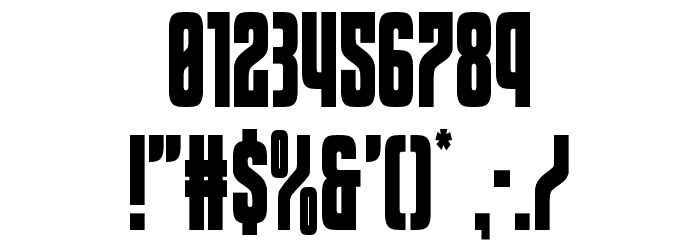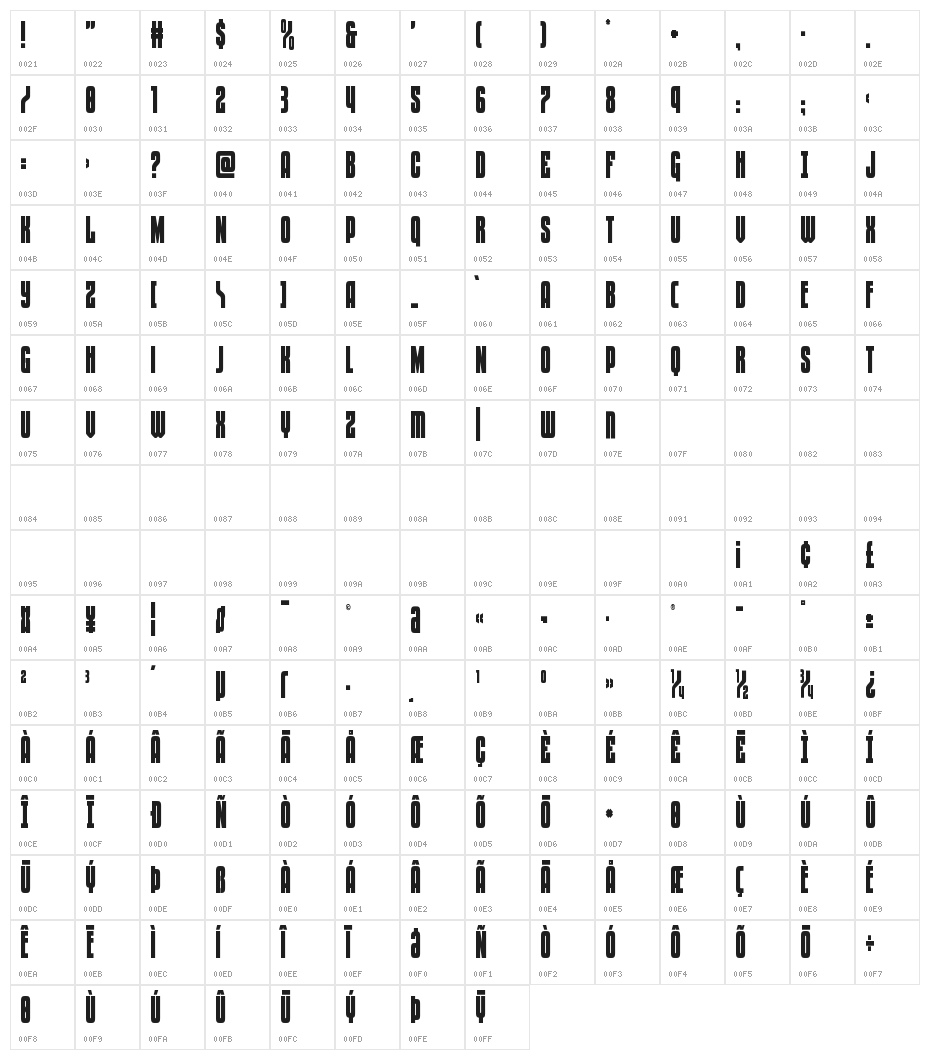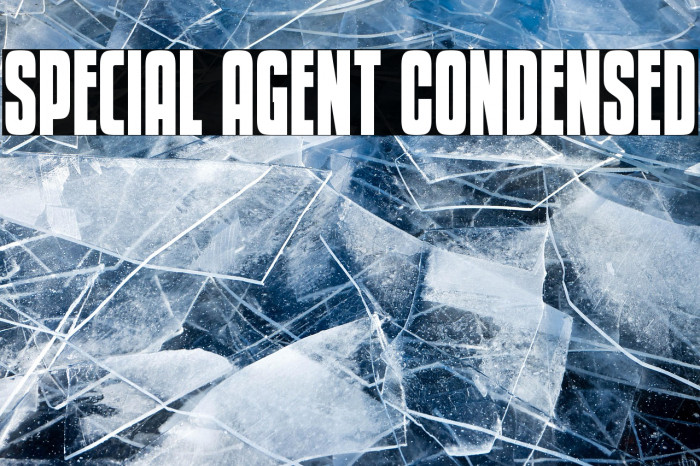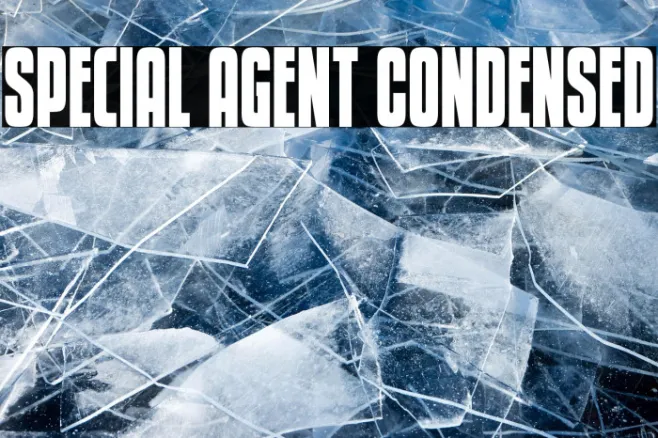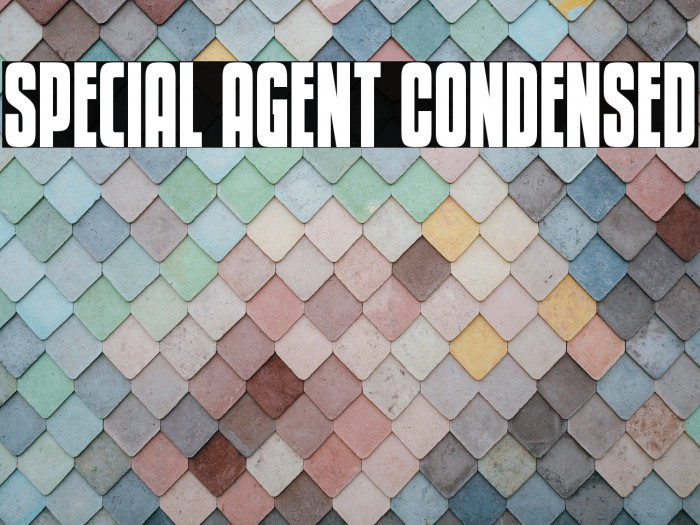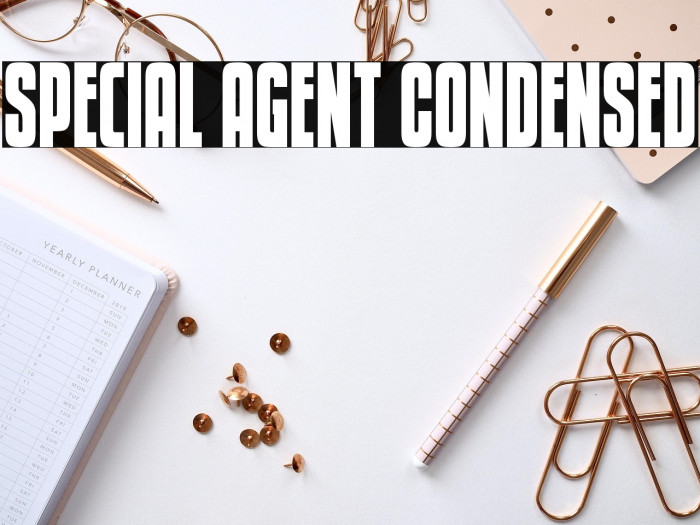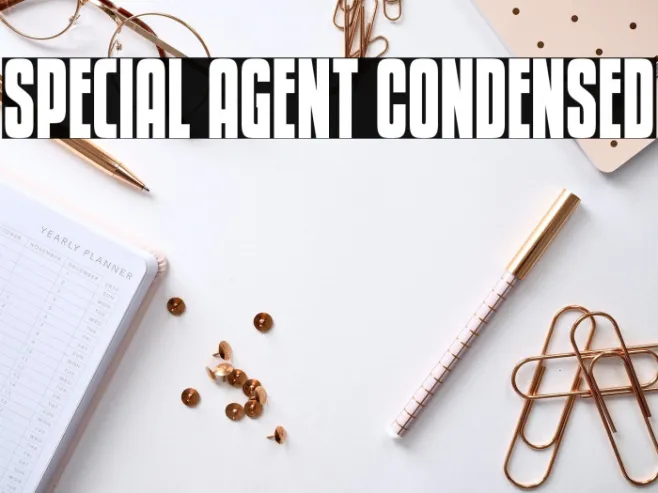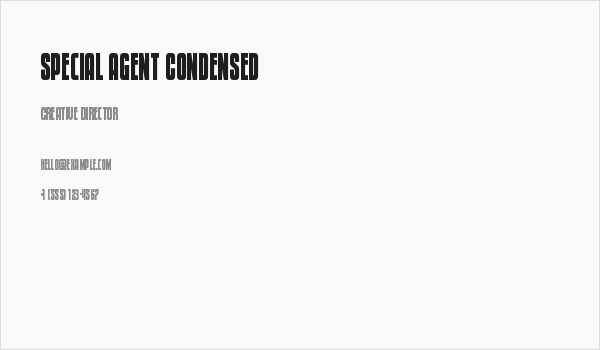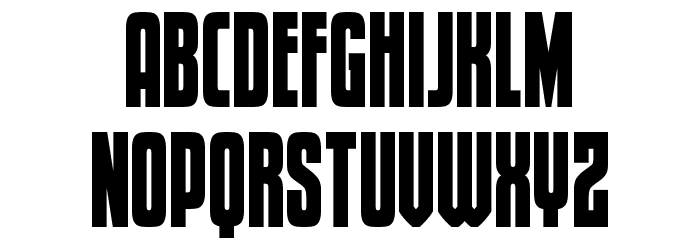
Special Agent Condensed Font
Special Agent Condensed Description
This font features a bold and condensed style, characterized by its thick, uniform strokes and minimal spacing between characters. The uppercase letters are prominent and assertive, making a strong visual impact. The numerals and special characters maintain the same boldness, ensuring consistency across all elements. The design is modern and sleek, suitable for projects that require a commanding presence. Its condensed nature allows for efficient use of space, making it ideal for headlines and titles where space is limited but impact is necessary.
| Proposed Projects | Ideal for posters, headlines, branding, and any design requiring a strong, impactful typeface. |